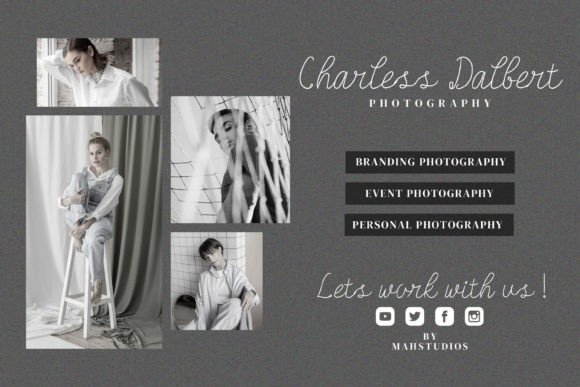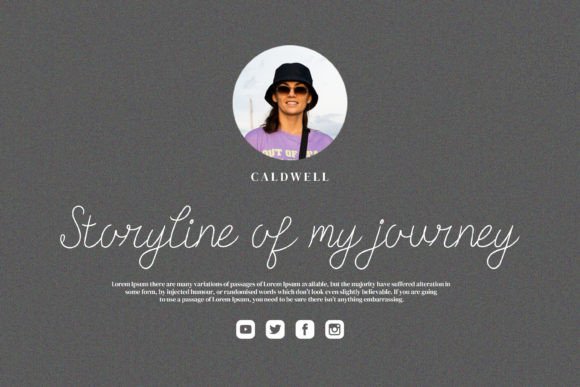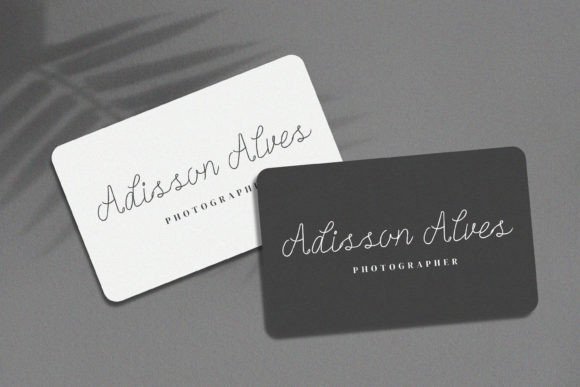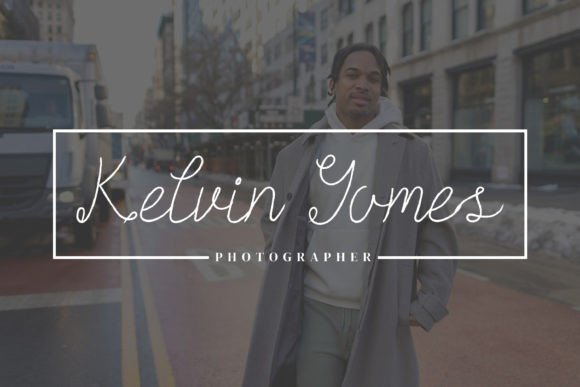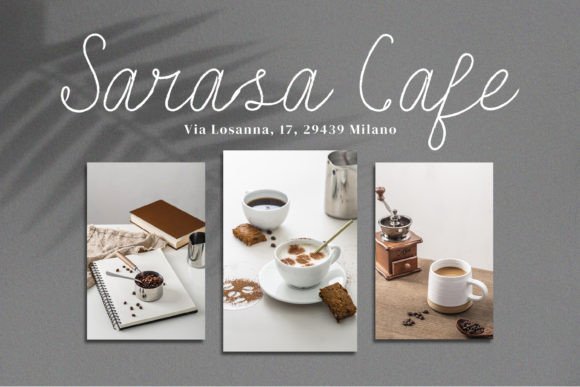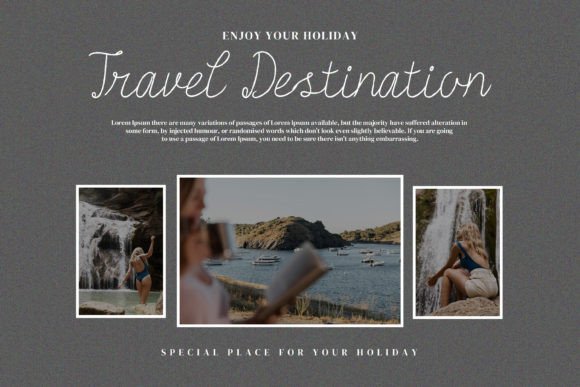
The Ultimate Guide to Be Rush Font: Elevate Your Designs with Luxury and Nostalgia
I’ll never forget the design project that led me to discover the stunning Be Rush font. I was working on a branding project for a high-end fashion client, and I was struggling to find the perfect font that exuded luxury and sophistication. The client wanted a vintage feel that would evoke a sense of nostalgia, but still feel modern and fresh. After hours of scouring font websites and testing out different options, I stumbled upon Be Rush – and it was love at first sight! 💕
An Honest Review of Be Rush Font
So, what makes Be Rush font so special? Let’s dive into the good stuff! 😊
- ✨ Elegant and intricate lines: Be Rush boasts beautiful, handwritten lines that scream luxury and glamour.
- ✅ Vintage style with a modern twist: This font perfectly balances nostalgia with a fresh, modern feel that’s perfect for a wide range of design projects.
- 💡 PUA encoded for easy access: With PUA encoding, you can easily access all the amazing glyphs and ligatures, making it a breeze to add unique touches to your designs.
Of course, no font is perfect, and Be Rush has a few minor quirks to keep in mind:
- ⚠️ May require some getting used to: The intricate lines and unique design may take some time to get accustomed to, especially if you’re used to more straightforward fonts.
- 🤔 Not ideal for body text: Due to its elegant, handwritten nature, Be Rush is best suited for headlines, titles, and short paragraphs – it may not be the best choice for longer blocks of text.
The Story Behind Be Rush Font
While the true story behind Be Rush font may be a mystery, it’s easy to imagine a designer pouring their heart and soul into creating such a beautiful, unique font. Perhaps they drew inspiration from vintage luxury brands, antique books, or classic movies. Whatever the inspiration, the result is a font that’s both timeless and modern.
| Font Name | Be Rush Font |
| Author | mahstudios |
| What is Be Rush font best used for? | Be Rush font is perfect for logos, branding, packaging, and any design project that requires a touch of luxury and nostalgia. |